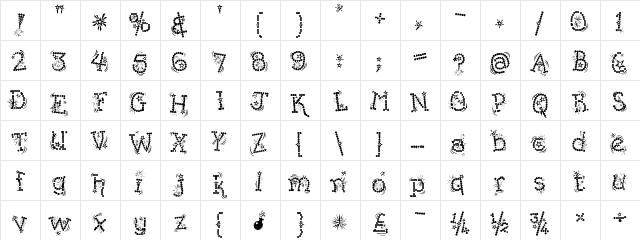
Kingthings Whizzbang regular
Design Context for Kingthings Whizzbang Typeface
Kingthings Whizzbang is a composed and adaptable typeface that performs quietly and consistently across a wide range of design contexts. Its slender proportions lend an understated elegance to any composition.